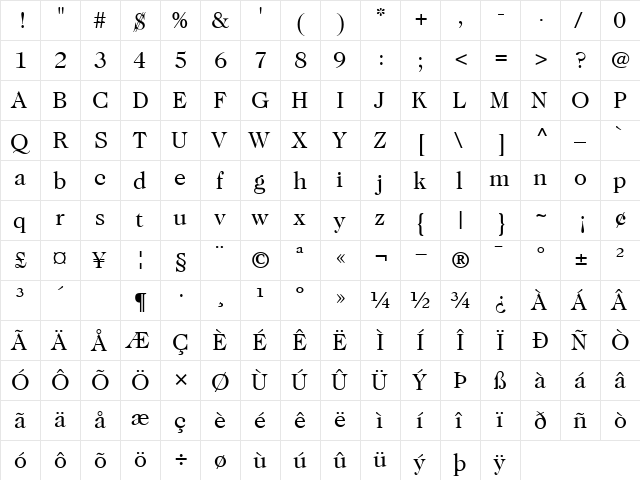
CaslonTwoTwentyFour Book
Design Context for CaslonTwoTwentyFour Typeface
CaslonTwoTwentyFour takes a measured approach to typography — its balanced proportions and neutral character make it a reliable workhorse for both digital and print work.